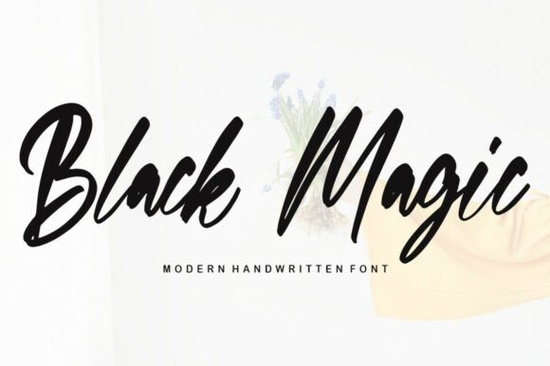
Designers and crafters often struggle to find a typeface that balances style with readability when working on personal branding. You need a script that conveys personality without confusing your audience, especially when scaling images for social media. The Black Magic Font provides exactly that balance with its modern yet classic handwritten look. This script typeface features smooth curves and variable line weight, making it stand out in any design layout. Whether you are creating social media graphics or physical products, having reliable assets saves valuable time during production.
When selecting a custom signature or headline text, the texture of the lettering matters significantly. Unlike standard sans-serif fonts that feel flat, this particular style mimics the flow of a fine tip marker. The connection between letters is consistent, preventing awkward gaps that can distract the eye. While some scripts rely heavily on cursive loops, this option retains a grounded feel, which improves legibility in headlines. Because of its distinct character, it serves well for coffee shop signage, boutique logos, and personalized greeting cards.
What visual characteristics define this handwriting style?
The primary draw lies in the variation of line thickness, which creates depth and movement across the page. When viewed up close, the edges remain sharp without blurring, even in complex junction points where strokes cross. This level of detail ensures the design prints cleanly on fabric or vinyl decals. If you typically prefer thinner lines that resemble ballpoint pen drawings, checking out Skinny Deco might give you a sense of that delicate aesthetic. Conversely, if you enjoy boldness and heavy ink coverage, Heatwave offers a comparable energy with a much wider stroke width.
Understanding the nuances of the ink flow helps prevent mismatches when pairing fonts. Mixing a very thin accent text with this heavier script can look unbalanced unless kerning is adjusted carefully. The designer intended for this to be the hero element in a composition rather than a background detail. It commands attention without being aggressive, fitting perfectly in wellness or lifestyle niches where warmth is preferred over corporate stiffness.
Is it versatile enough for print-on-demand business models?
Yes, legibility is key when selling merchandise through print-on-demand platforms. A decorative script can sometimes become too difficult to read at smaller sizes, but this design maintains clarity even when scaled down. It works well for mug wraps, tote bags, and apparel labels where the customer needs to identify the brand instantly. The thick-to-thin transitions mimic real ink flow, adding a touch of authenticity that digital letters often lack. You do not need advanced graphic skills to make it look professional because the built-in ligatures handle connections automatically.
Black Magic Font fits into these workflows seamlessly due to its inclusion in standard font collections. Many vendors provide packages containing the font file along with sample images showing realistic applications. Having mockups available reduces guesswork when presenting new designs to clients. It also supports a wide range of character sets, including numbers and basic punctuation required for addresses and pricing tags.
Can I combine it with other typographic elements?
Exploring other styles helps keep your portfolio fresh, especially when designing multi-page documents like brochures. Sometimes a single project calls for multiple text treatments to establish hierarchy effectively. If you desire a more structured approach than casual writing, resources featuring Calligraphy Capital styles offer cleaner alignment for headers. These fonts often provide uppercase variations that look sophisticated alongside modern body text. They provide a nice counterpoint to the organic nature of the script.
Using variety prevents designs from feeling repetitive over a long brand campaign. For those wanting fluid motion similar to pen-in-hand movement without the tight loops, Yolanda is another strong option worth reviewing in your search results. Combining two distinct scripts can create dynamic interest within a poster or invitation card. You might place the main message in the standard hand style and highlight specific keywords in a contrasting font. This technique guides the viewer’s eye through the content logically.